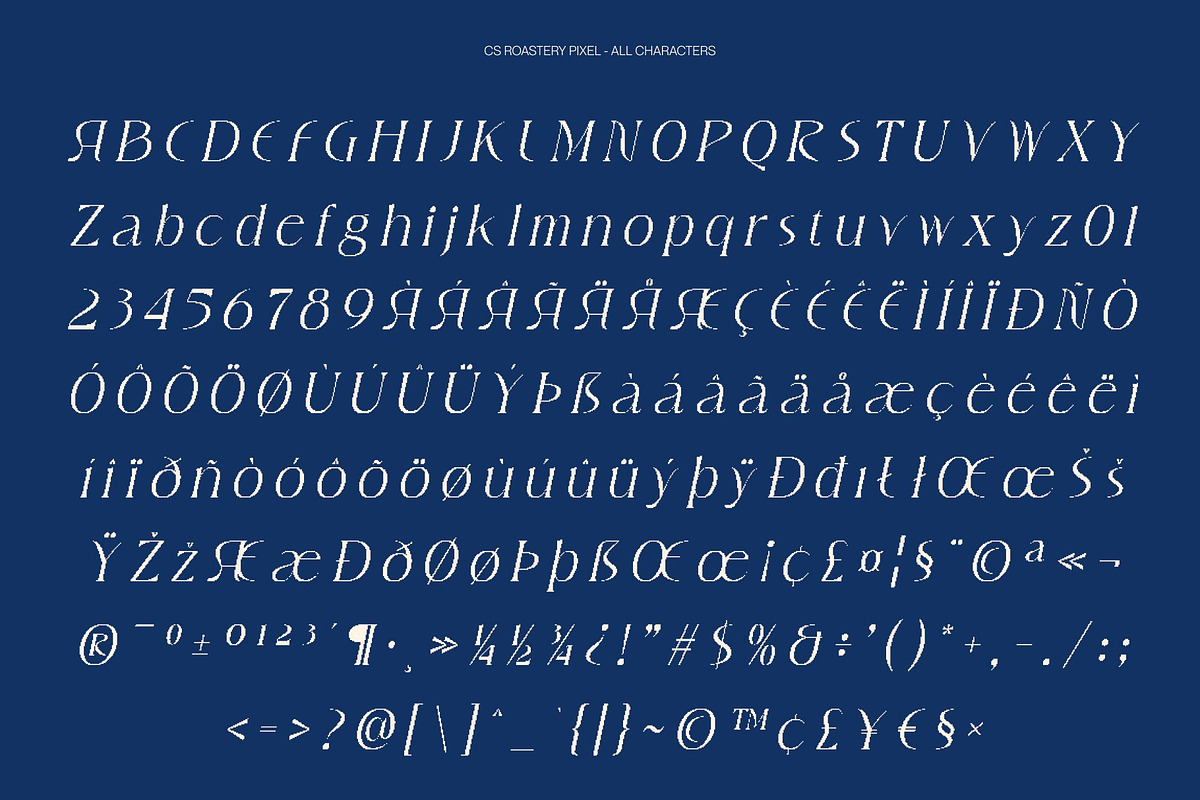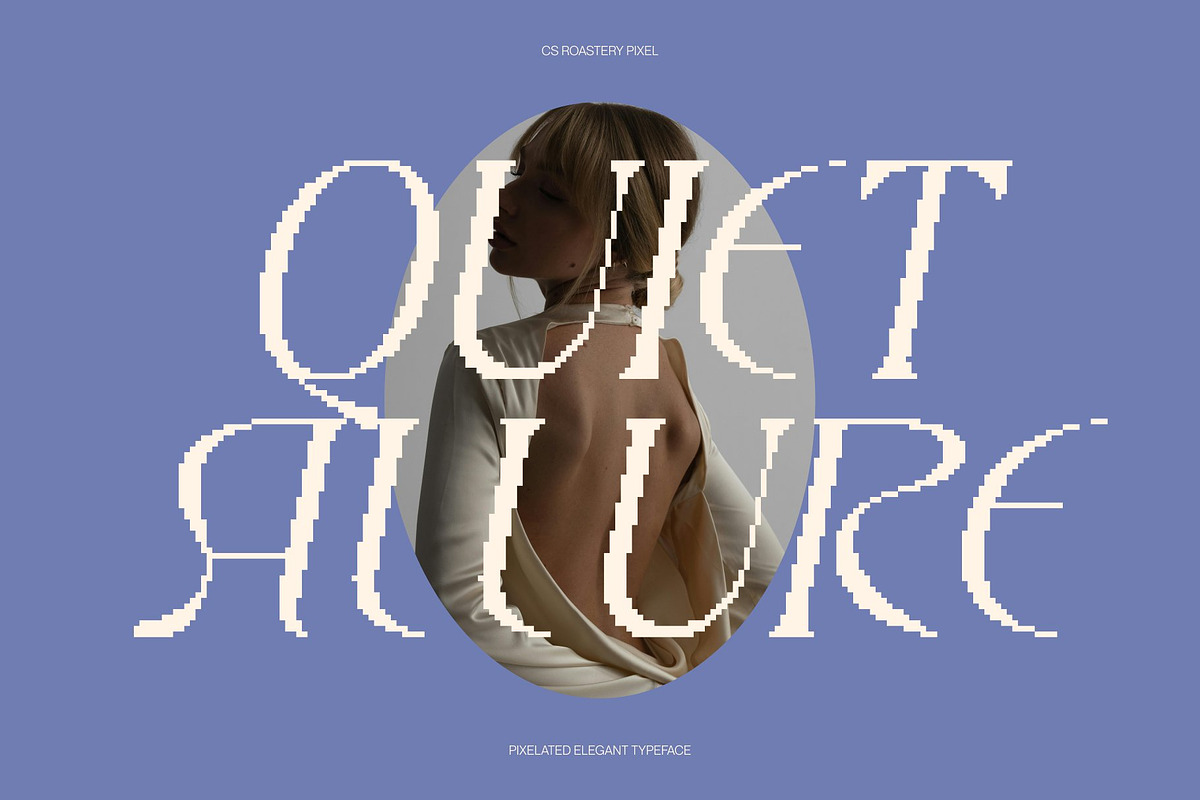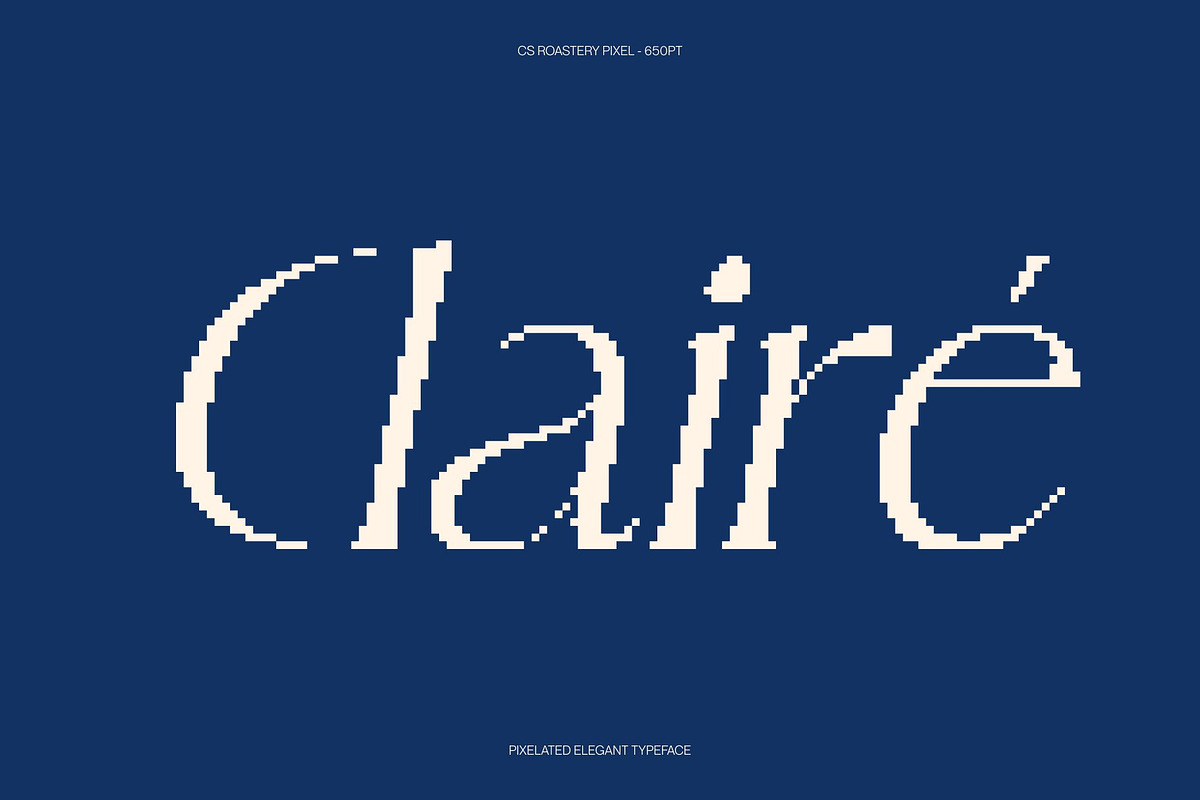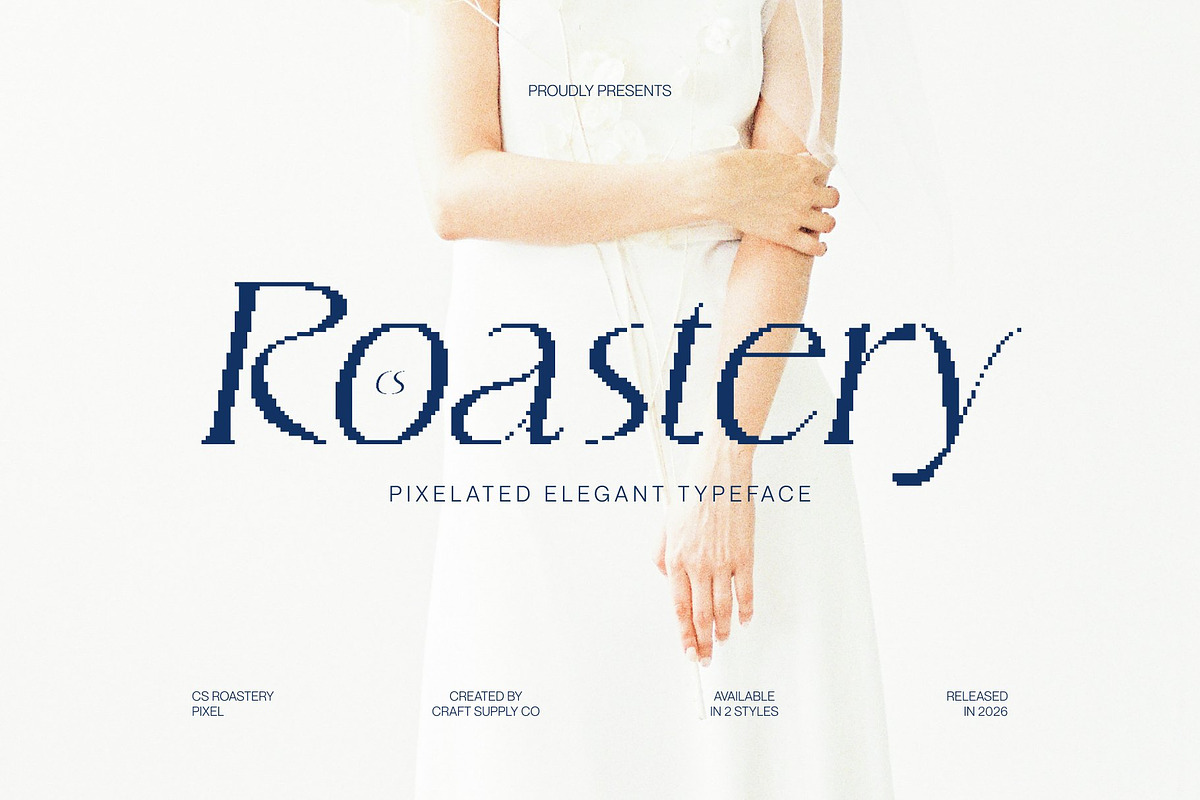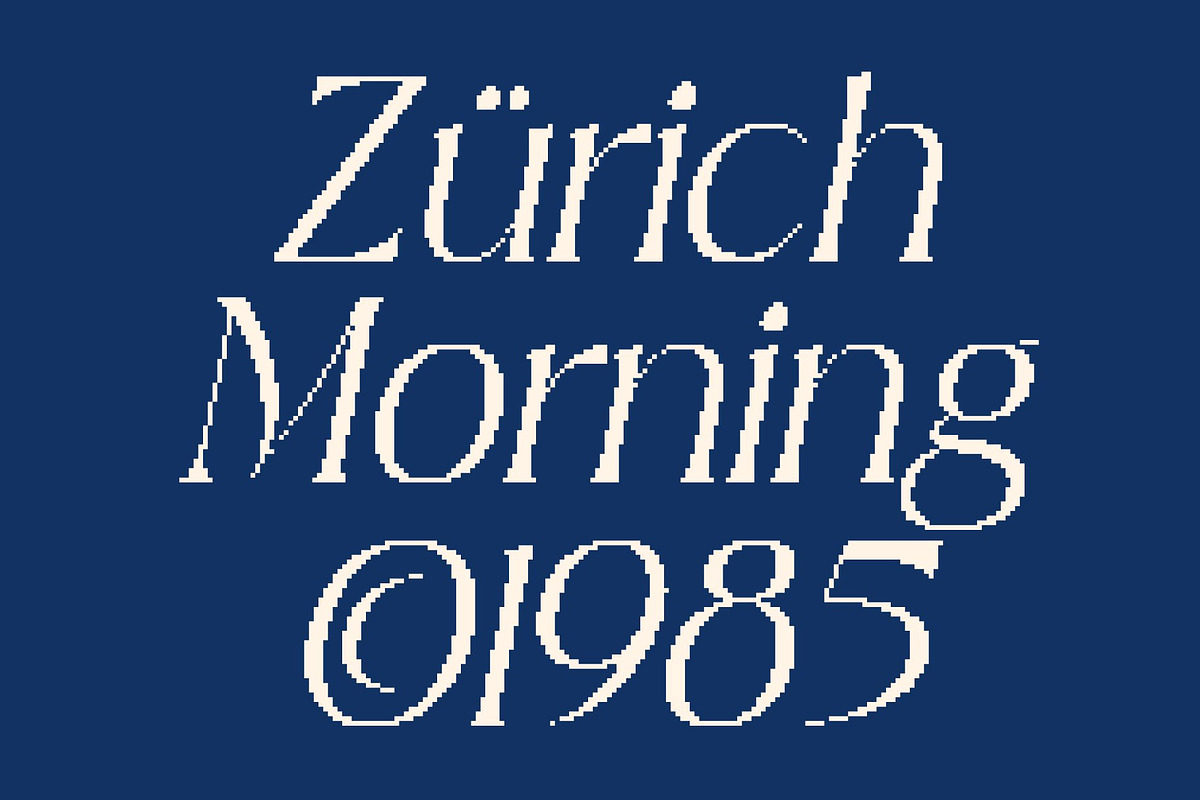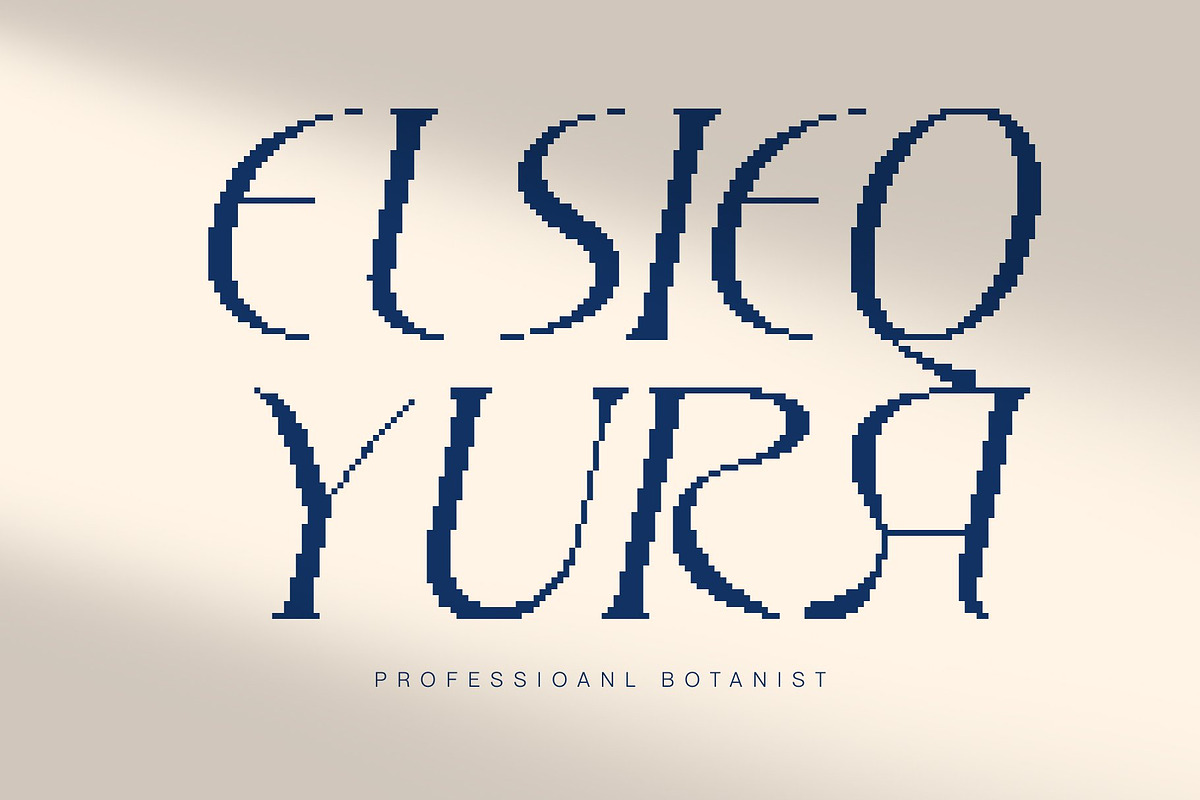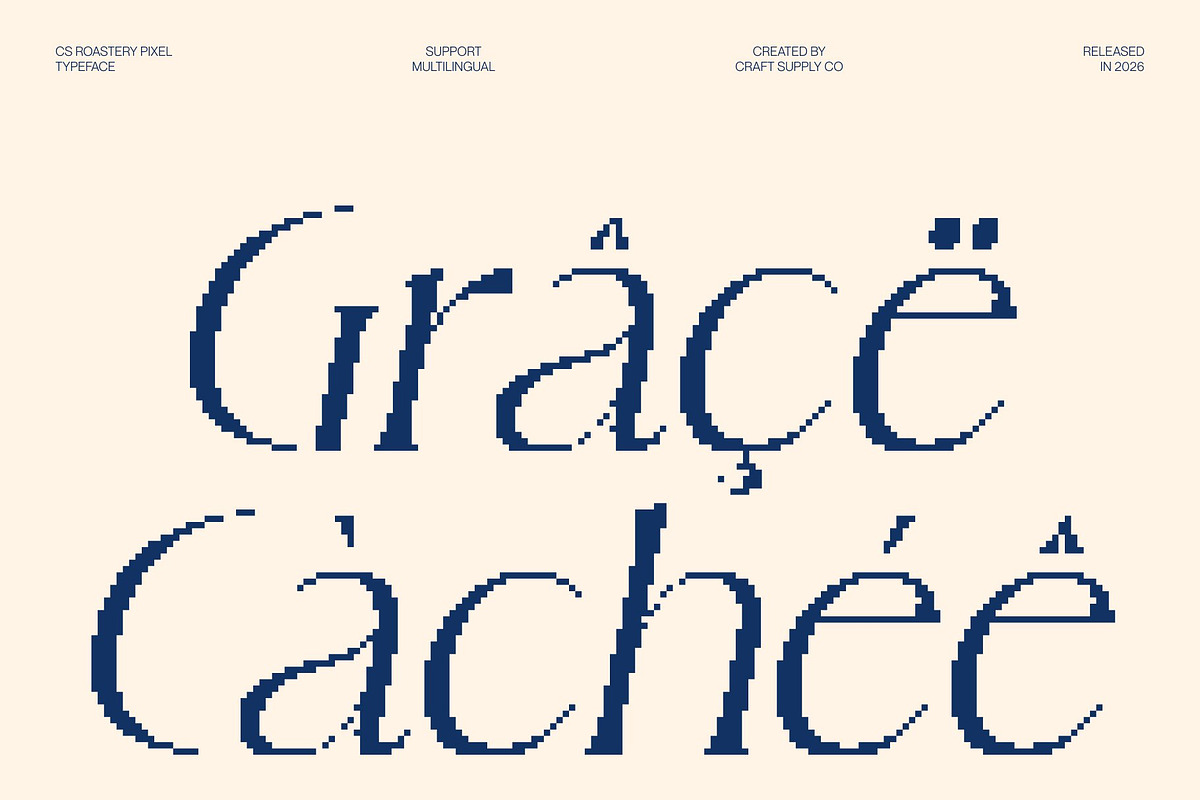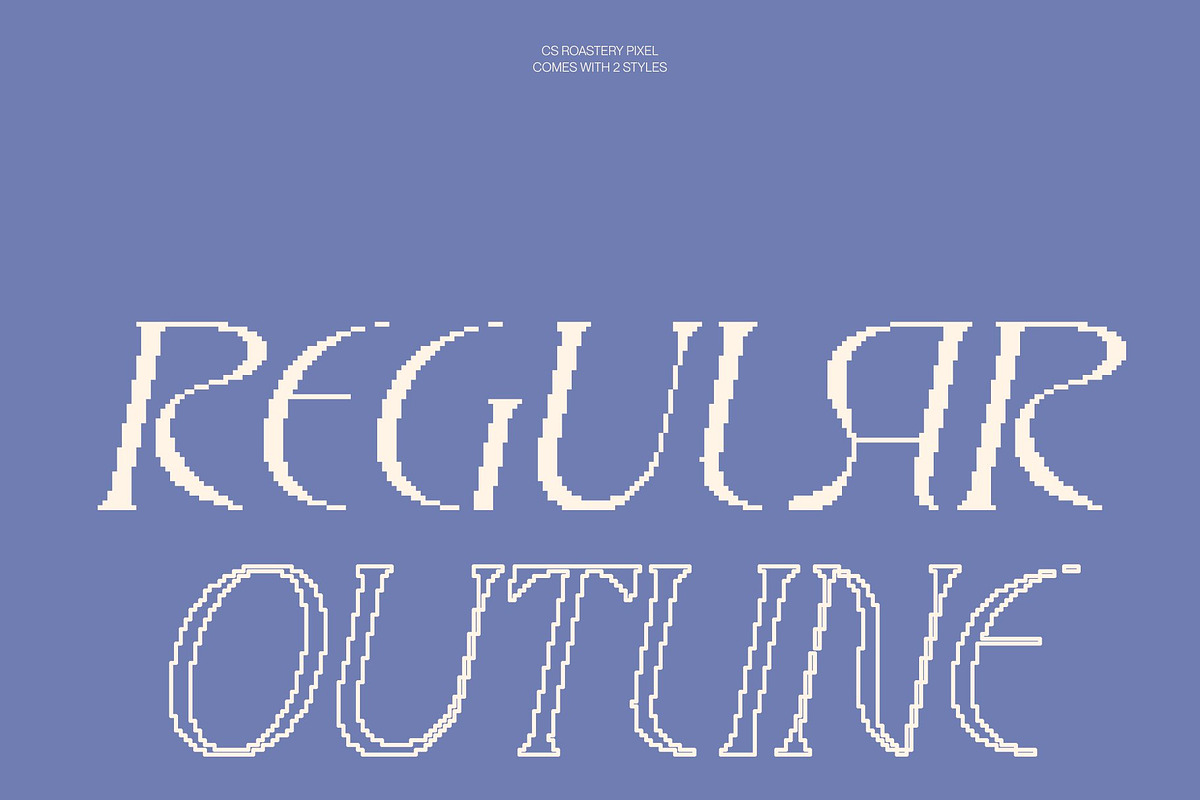
CS Roastery Pixel
CS Roastery Pixel – Elegant Serif Font: Classic Sophistication with a Modern Pixel Twist Refined Elegance with Contemporary Precision This is a modern display serif font that radiates elegance, confidence, and timeless sophistication. Designed for premium visuals, it blends classic serif traditions with subtle pixel-inspired details, creating a refined yet contemporary aesthetic that feels both luxurious and current.
Modern Serif Design with Pixel Character Built on clean lines and well-balanced proportions, this font reinterprets classic serif forms through a modern lens. The addition of pixel accents introduces a crisp digital edge, enhancing the font’s visual identity without compromising its graceful structure. This balance results in typography that feels polished, distinctive, and relevant to modern design trends.
Elegant Presence with Distinctive Style The refined detailing and confident letterforms give a strong sense of class and professionalism. Its elegant rhythm makes it ideal for high-impact headlines, editorial layouts, and branding that demand sophistication with a contemporary attitude.
Perfect for Luxury Branding and Premium Projects This font excels in high-end branding, fashion identities, lifestyle visuals, packaging, and upscale editorial design. Whether used for logos, magazine titles, or luxury product presentations, this font delivers a premium impression where classic elegance meets modern digital precision.